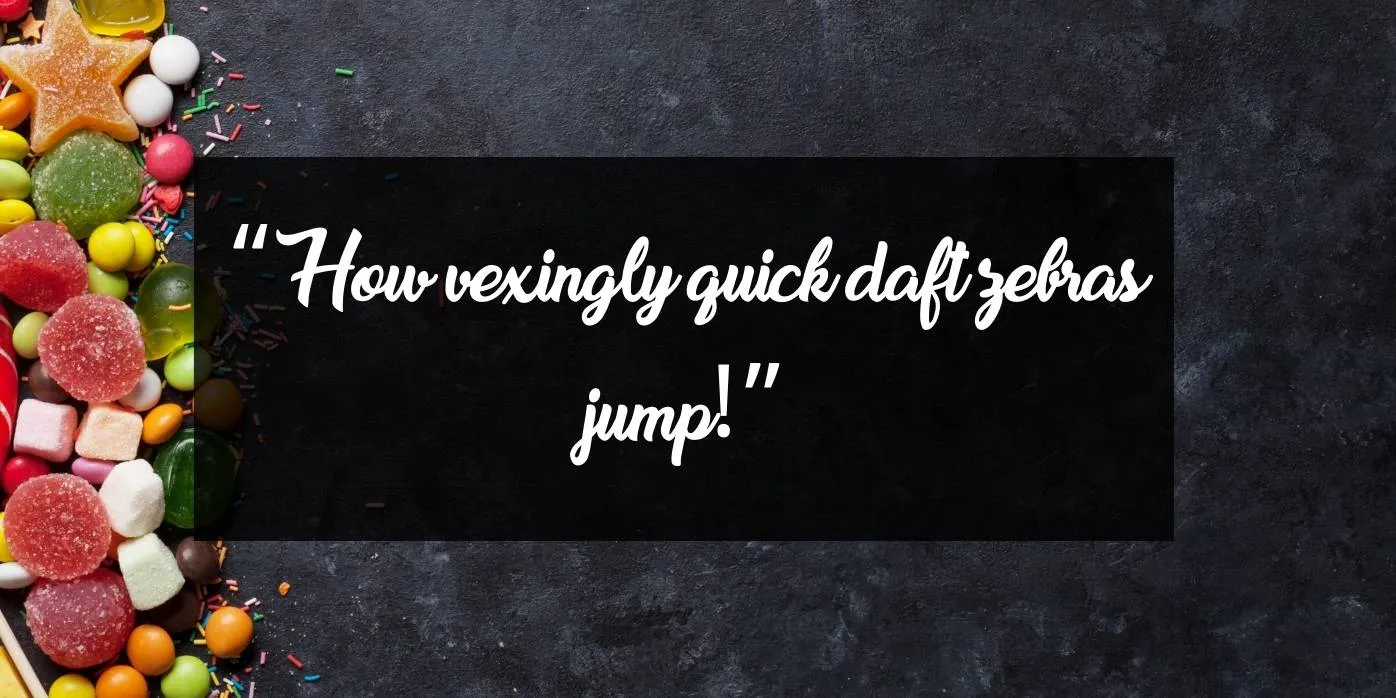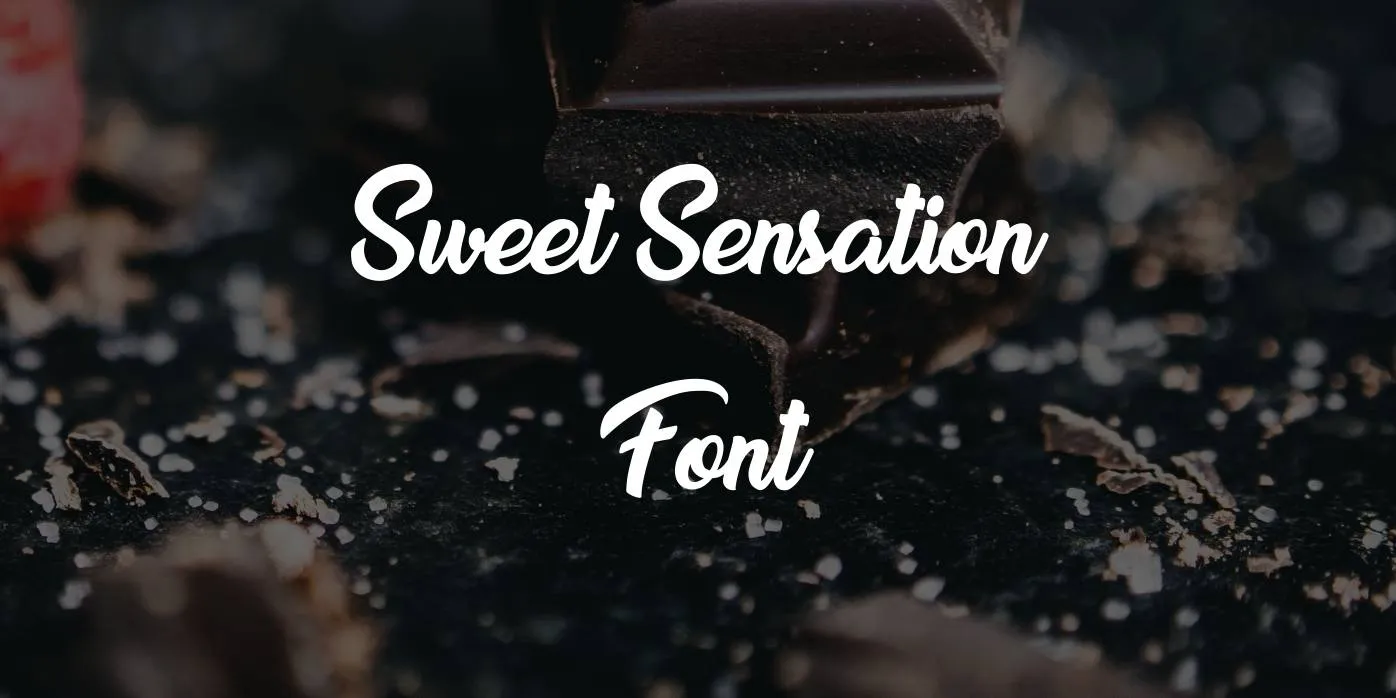
Sweet Sensation Font
Today, we present a very modern and gorgeous typeface named Sweet Sensation Font. This glorious typeface was developed by Billy Argels. This tremendous typeface belongs to the Script font family. It is available in 109 popular and unique characters.
This awesome typeface is available in two special styles. These two styles are regular and italic. This attractive font has unique and amazing characters. One best thing about this font family is that it has classic and special look letters.